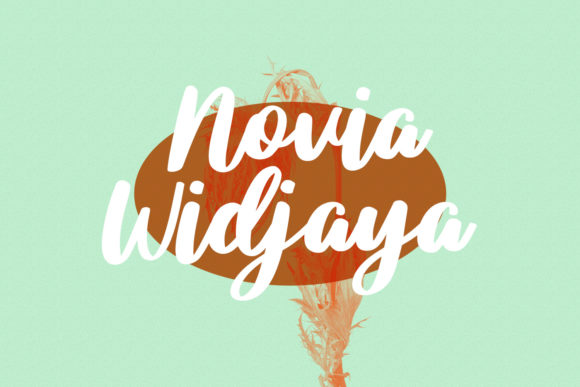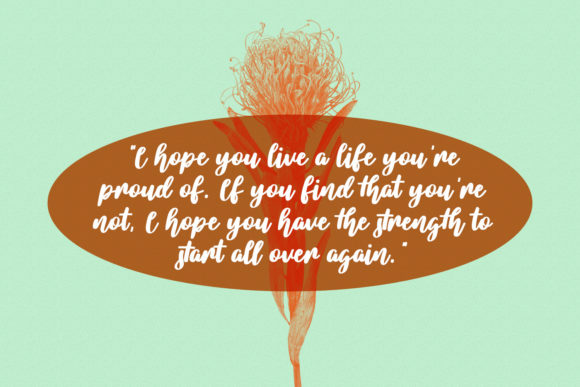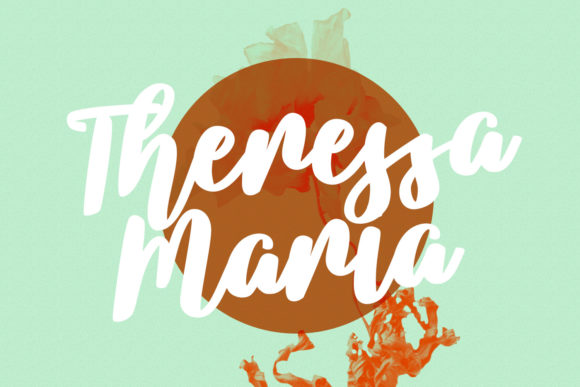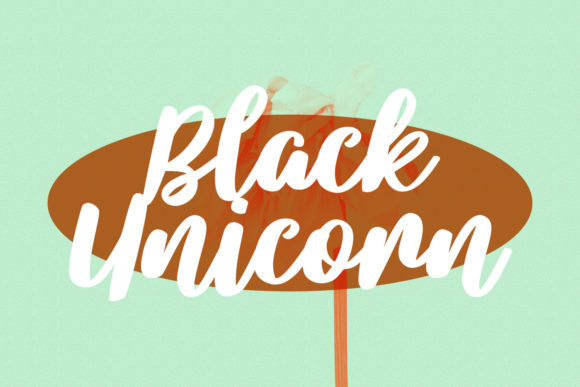
About Atherist Script Font
Atherist is a modern script font featuring slanted bold strokes, fun characters, and unique ligatures.
This font is good for logo design, Social media, Movie Titles, Books Titles, short text even long text. Make stunning work with Atherist!